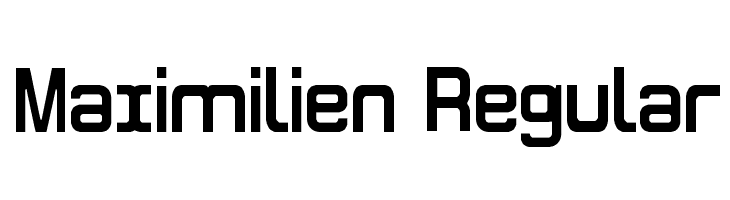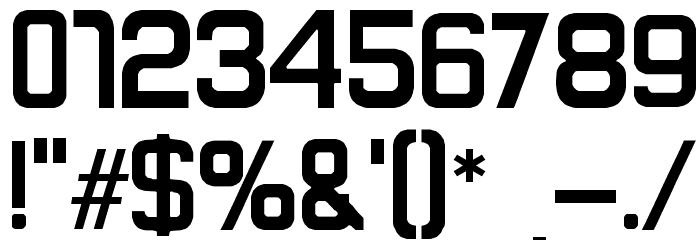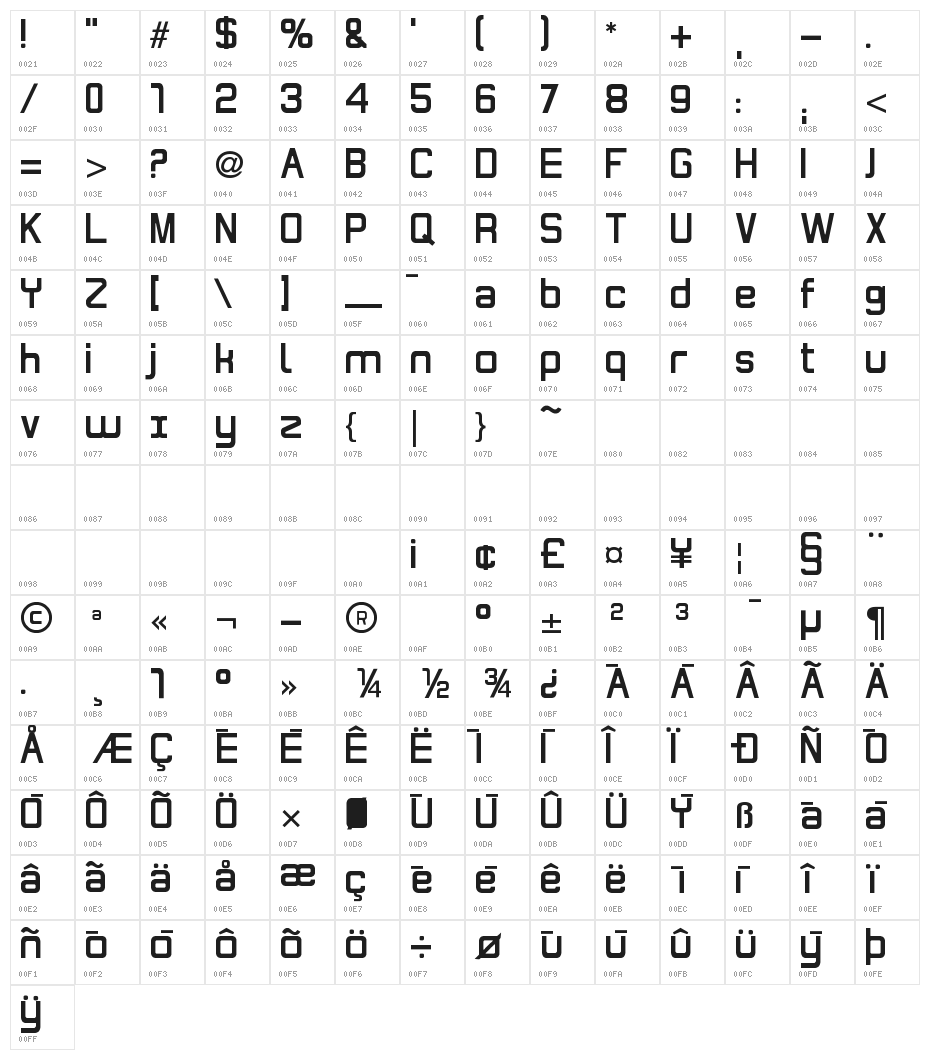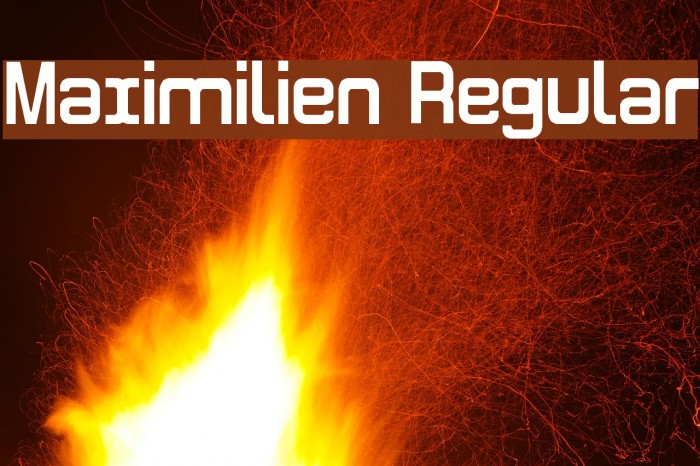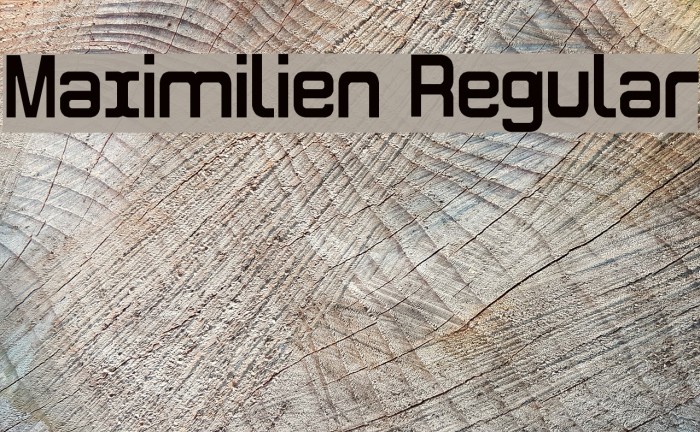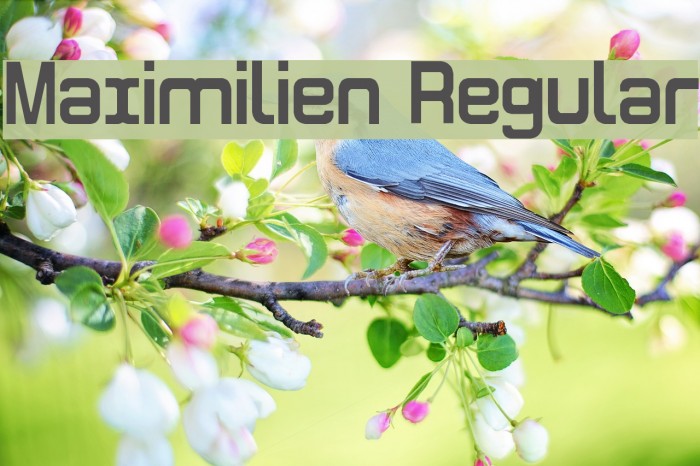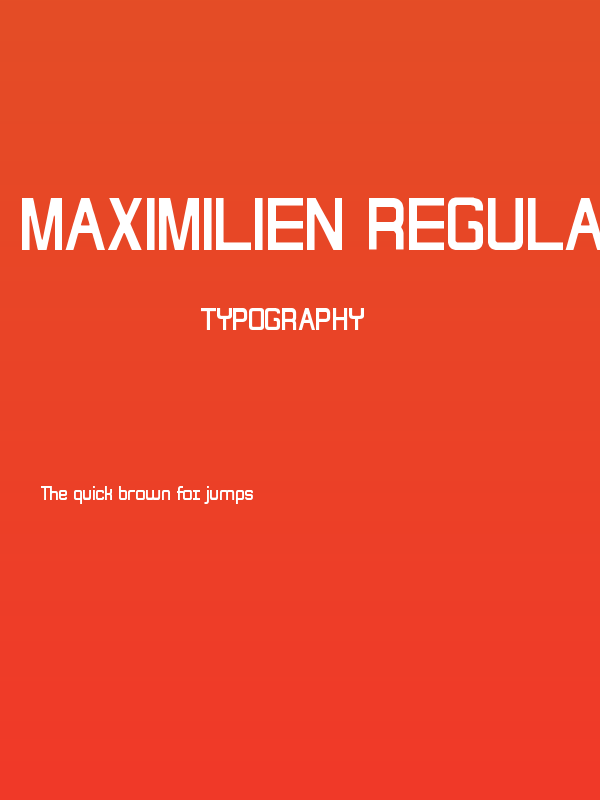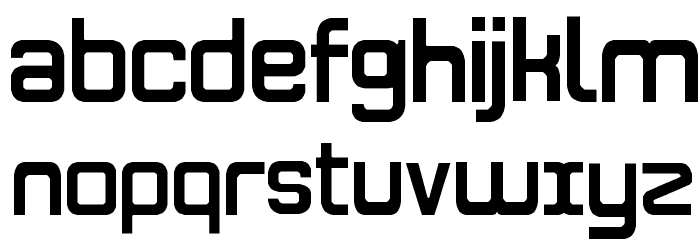
Maximilien Regular Font
Maximilien Regular Description
This font features a modern, geometric design with clean lines and a structured appearance. The characters are uniform in width, contributing to a cohesive and balanced look. The uppercase letters are bold and assertive, while the lowercase letters maintain a consistent style with slightly rounded edges, adding a touch of softness to the overall design. The numerals are clear and distinct, making them highly legible. Special characters are well-integrated, maintaining the font's modern aesthetic. This typeface is versatile, suitable for a variety of design projects that require a contemporary and professional appearance.
| Use Case | Headlines, Logos, Web design |
| Proposed Projects | Ideal for branding, advertising, web design, and editorial projects that require a contemporary and professional look. |